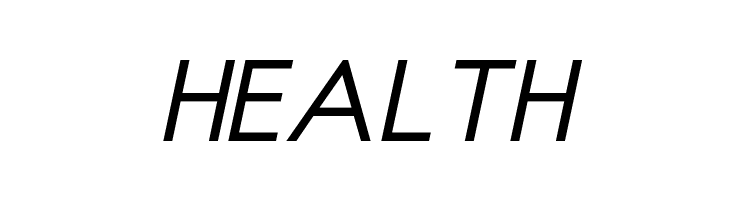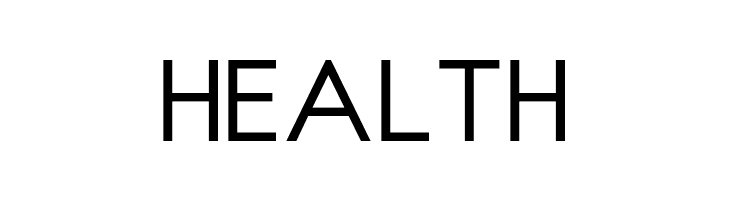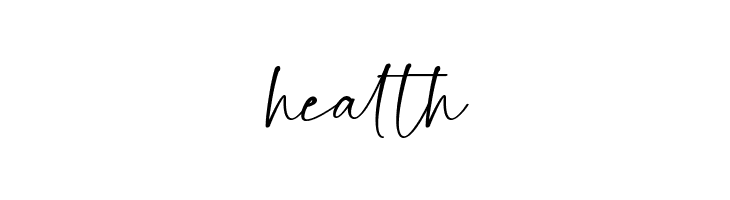
A modern, italicized font with clean lines and medium contrast.
A modern, geometric sans-serif font with clean lines and balanced spacing.
A charming and playful script font with fluid, connected letterforms.
A fluid, cursive script font with a natural handwritten style.
A lively and elegant handwritten font with fluid, dynamic strokes.
A modern blend of handwritten script and sans-serif styles.
A graceful and elegant script font with flowing curves and decorative flourishes.
A playful and elegant handwritten font with fluid, cursive letterforms.
A lively and elegant script font with fluid, handwritten letterforms.
A fluid and graceful script font with elegant, flowing lines.